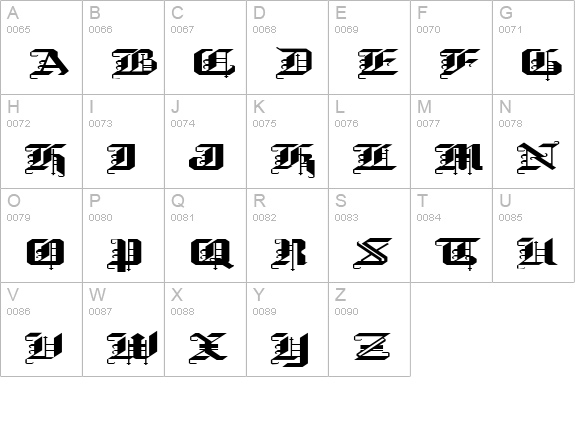
Alarich Font Details
Alarich font is a stunning display typeface that exudes elegance and sophistication. With its intricate details and ornate flourishes, this font is perfect for adding a touch of luxury to your designs. Whether you're working on a wedding invitation, a logo, or a poster, Alarich font will surely make a statement. What's even better is that Alarich font is available for free download at FontsMarket.com. Yes, you read that right - this exquisite font can be yours at no cost. So go ahead and elevate your projects with the beauty and charm of Alarich font today!